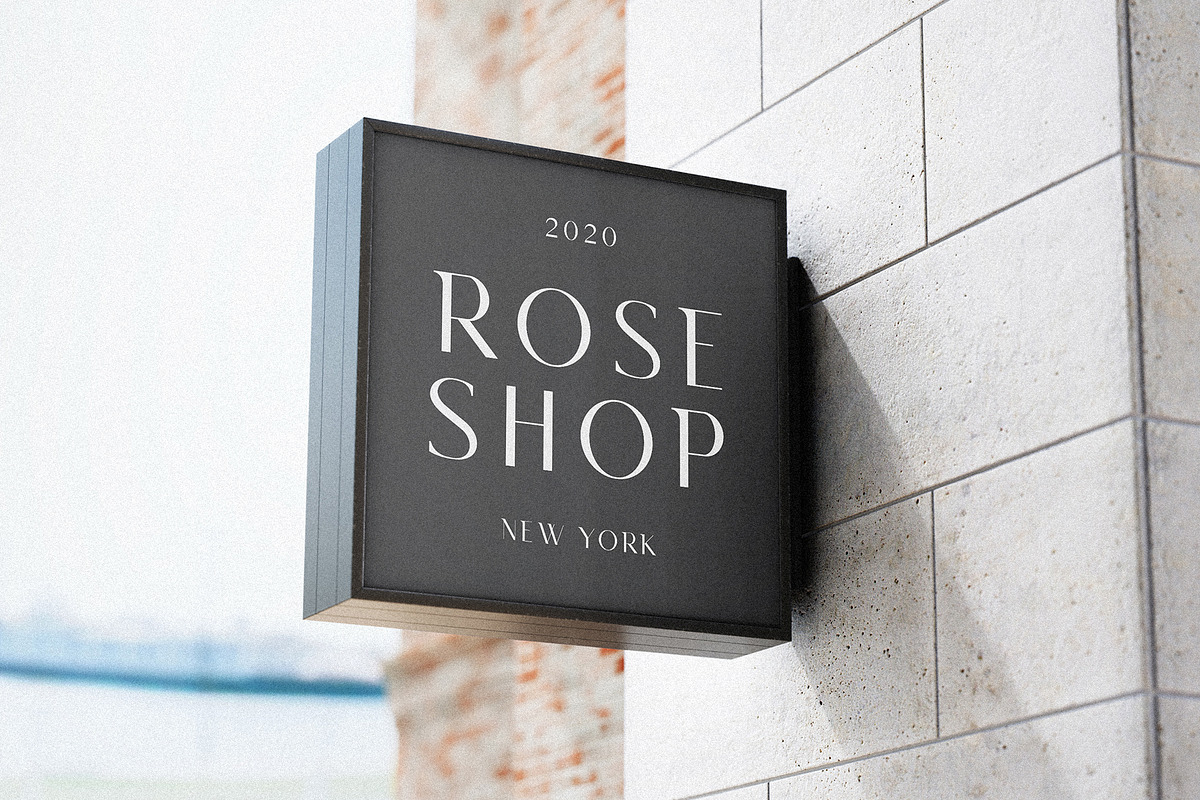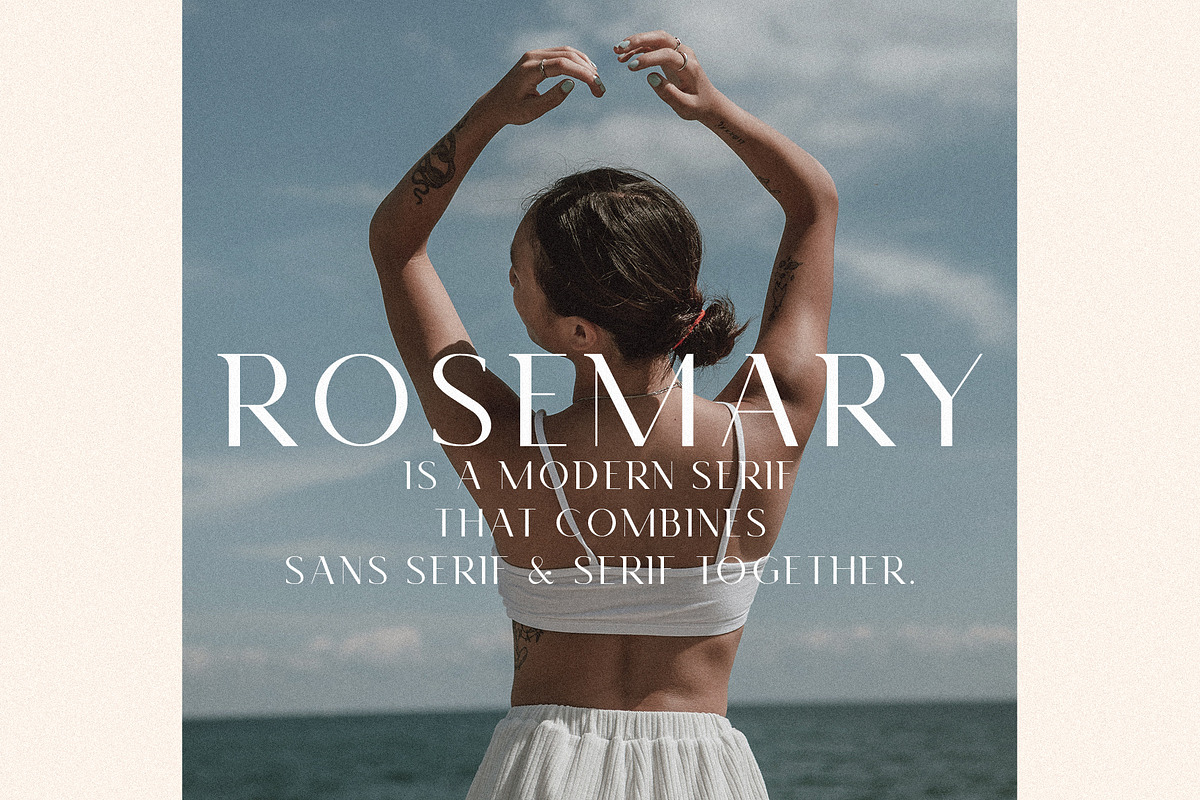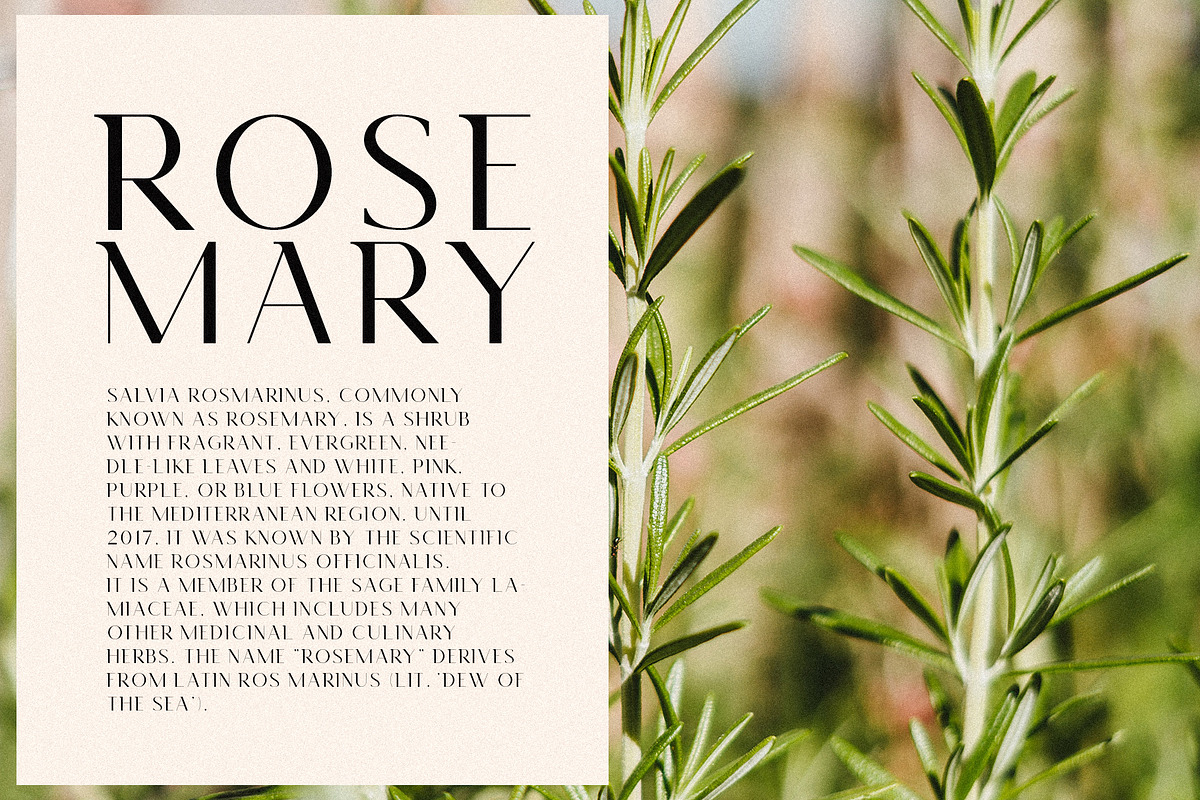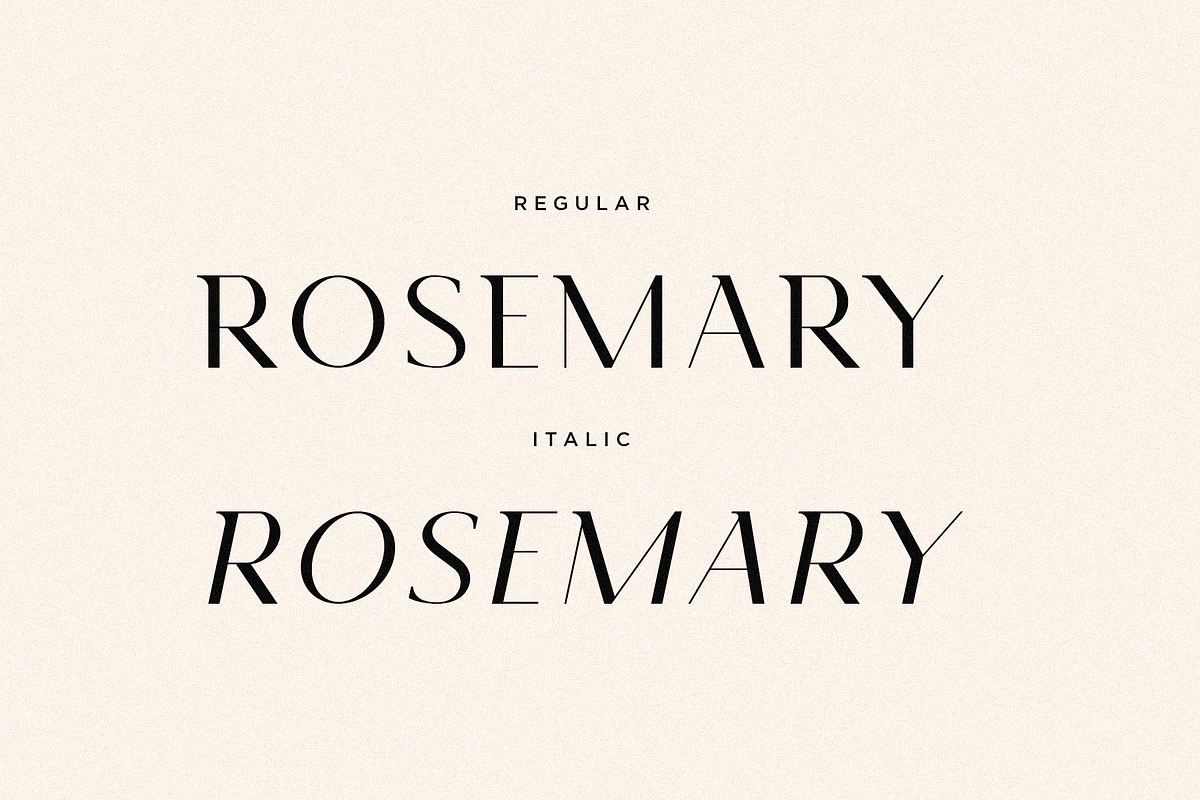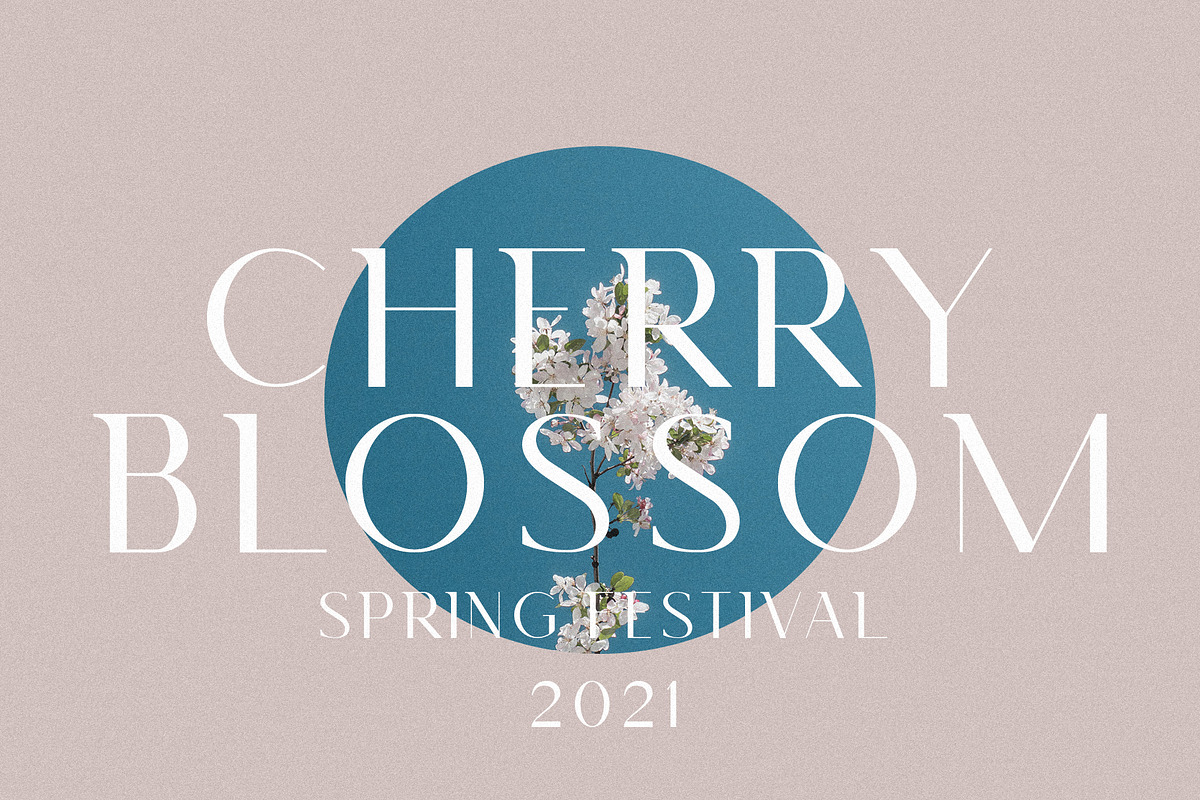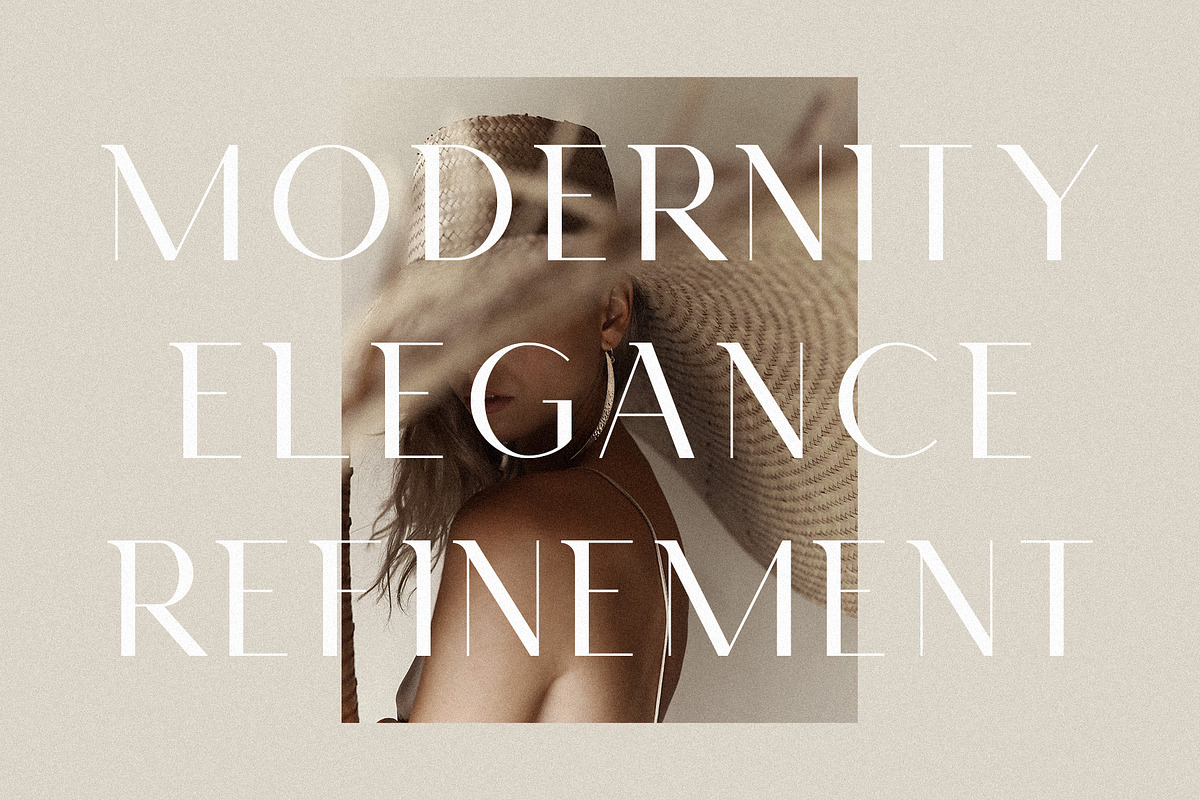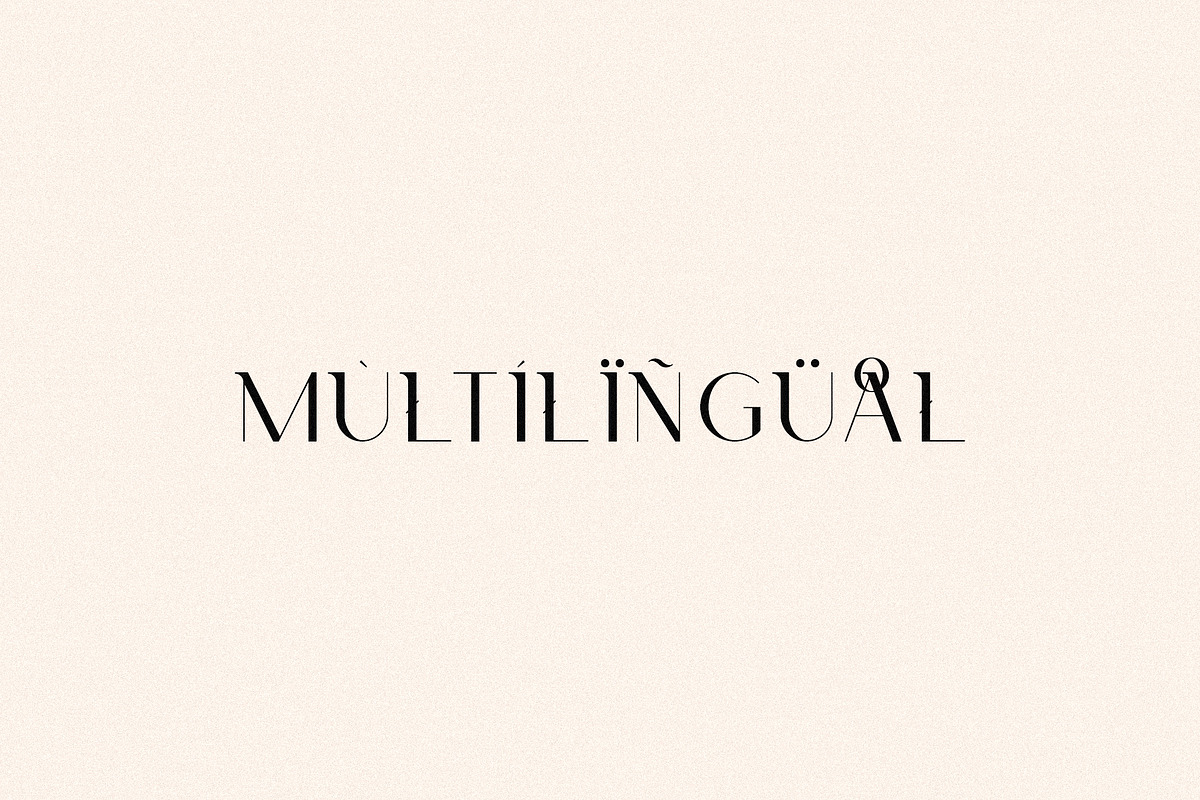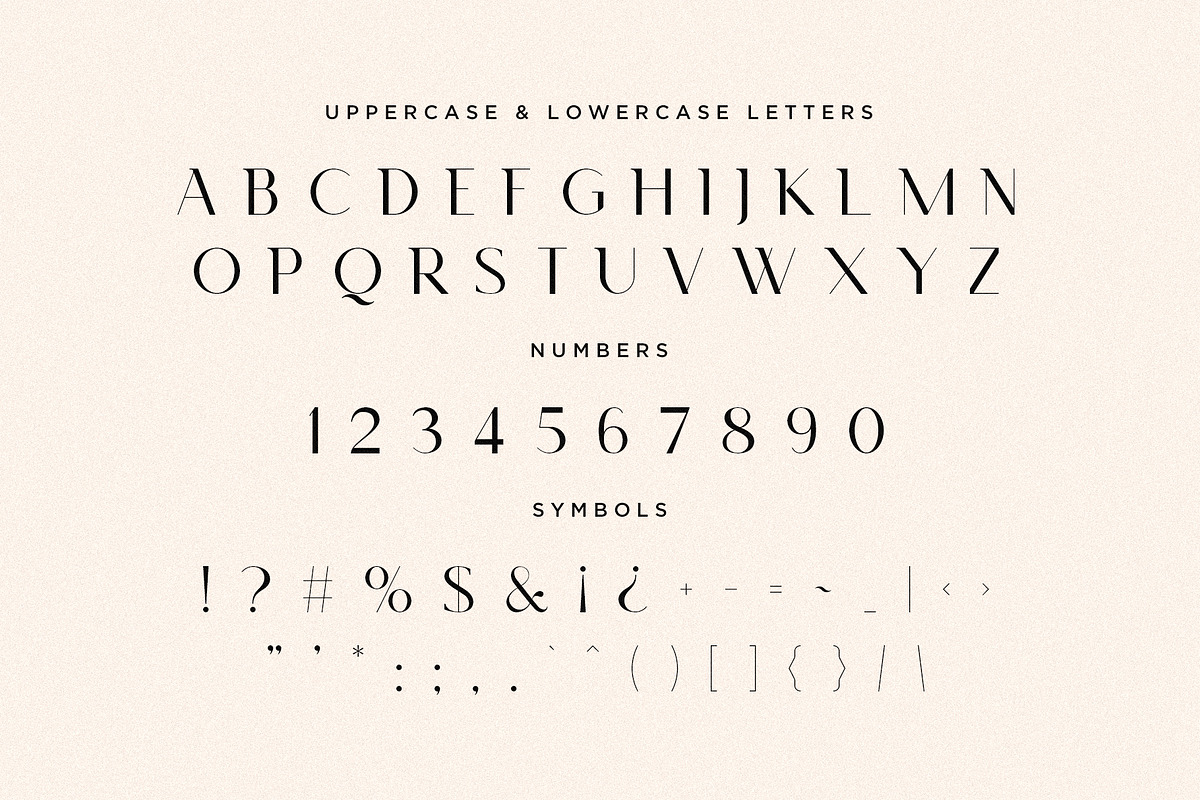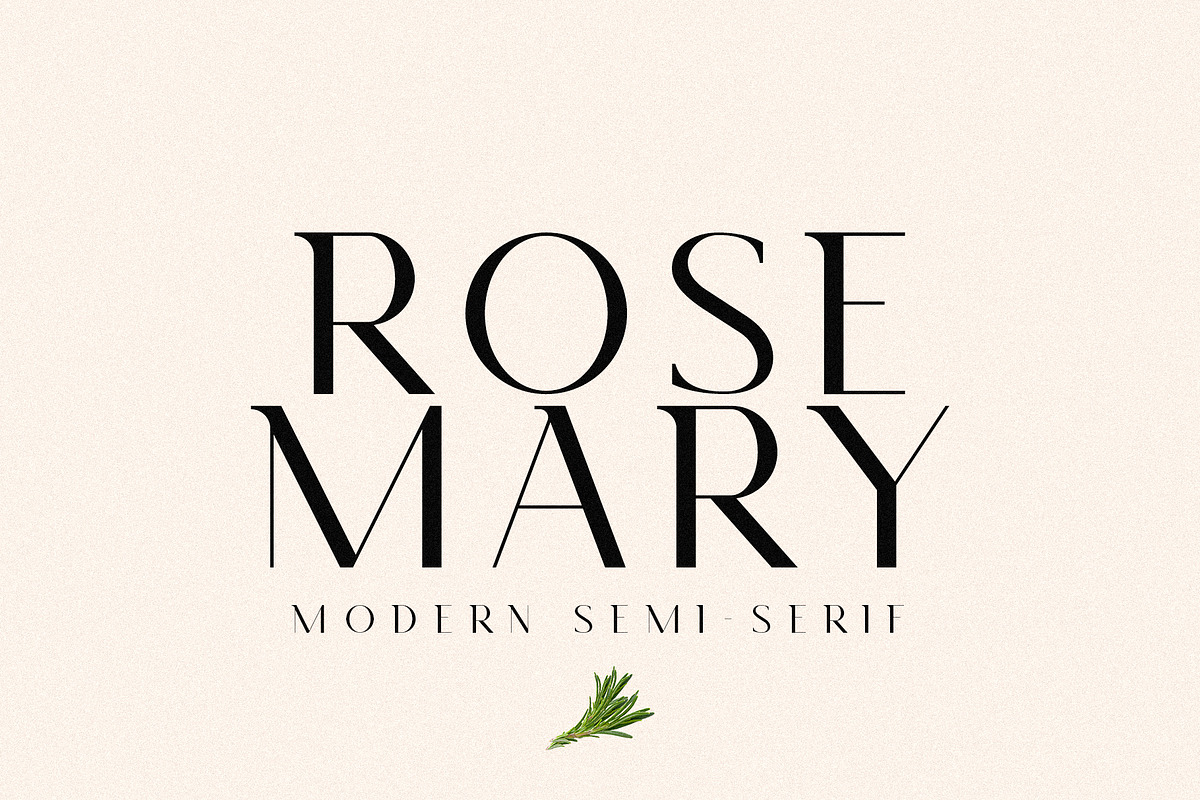
Rosemary - Modern Semi Serif
Rosemary is a modern serif that that combines sans serif & serif together. The font is perfect for magazine headers, titles, logos, banners, labels and etc. Also Rosemary could be paired with scripts.
Rosemary Features:
- 2 Versions: Regular, Italic
- Letters